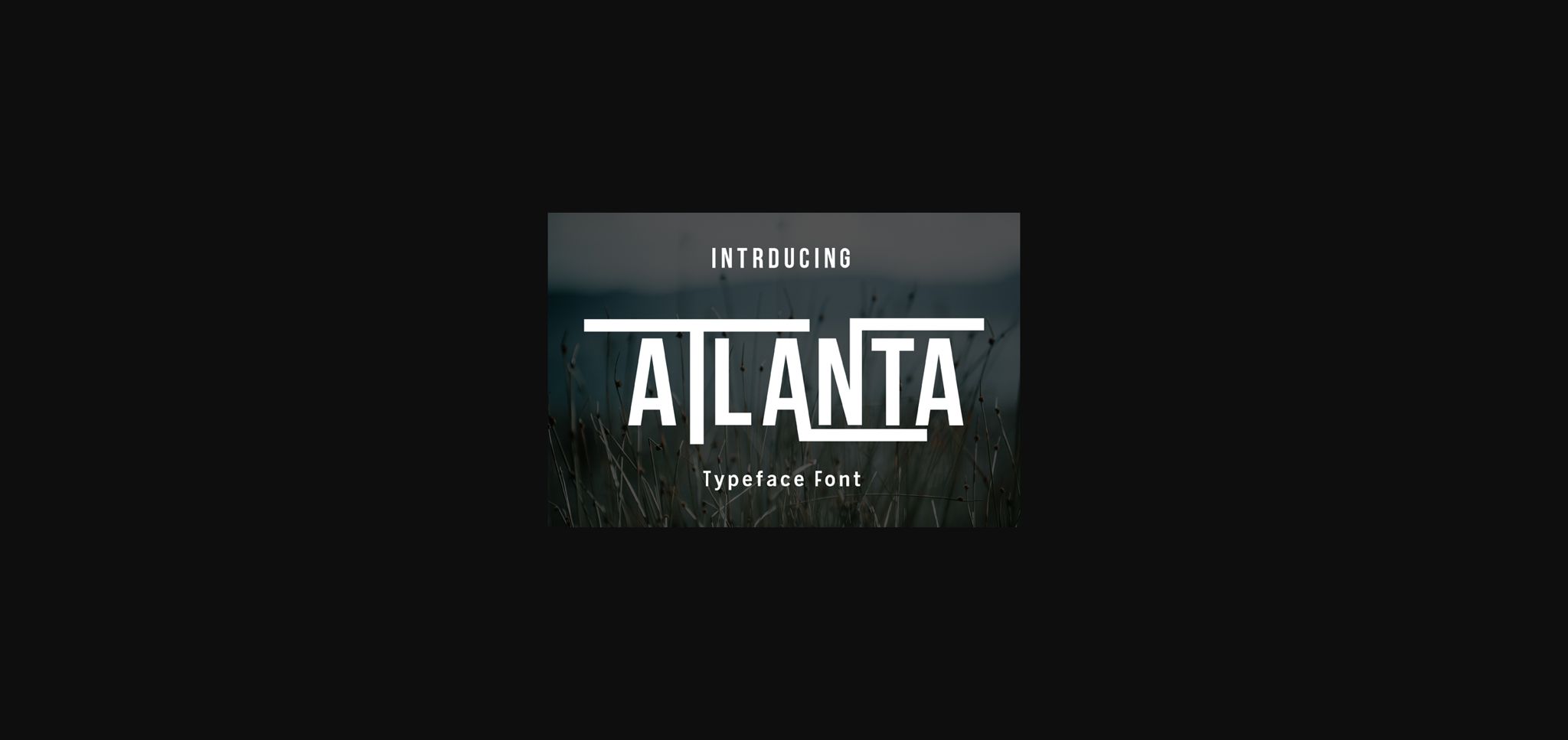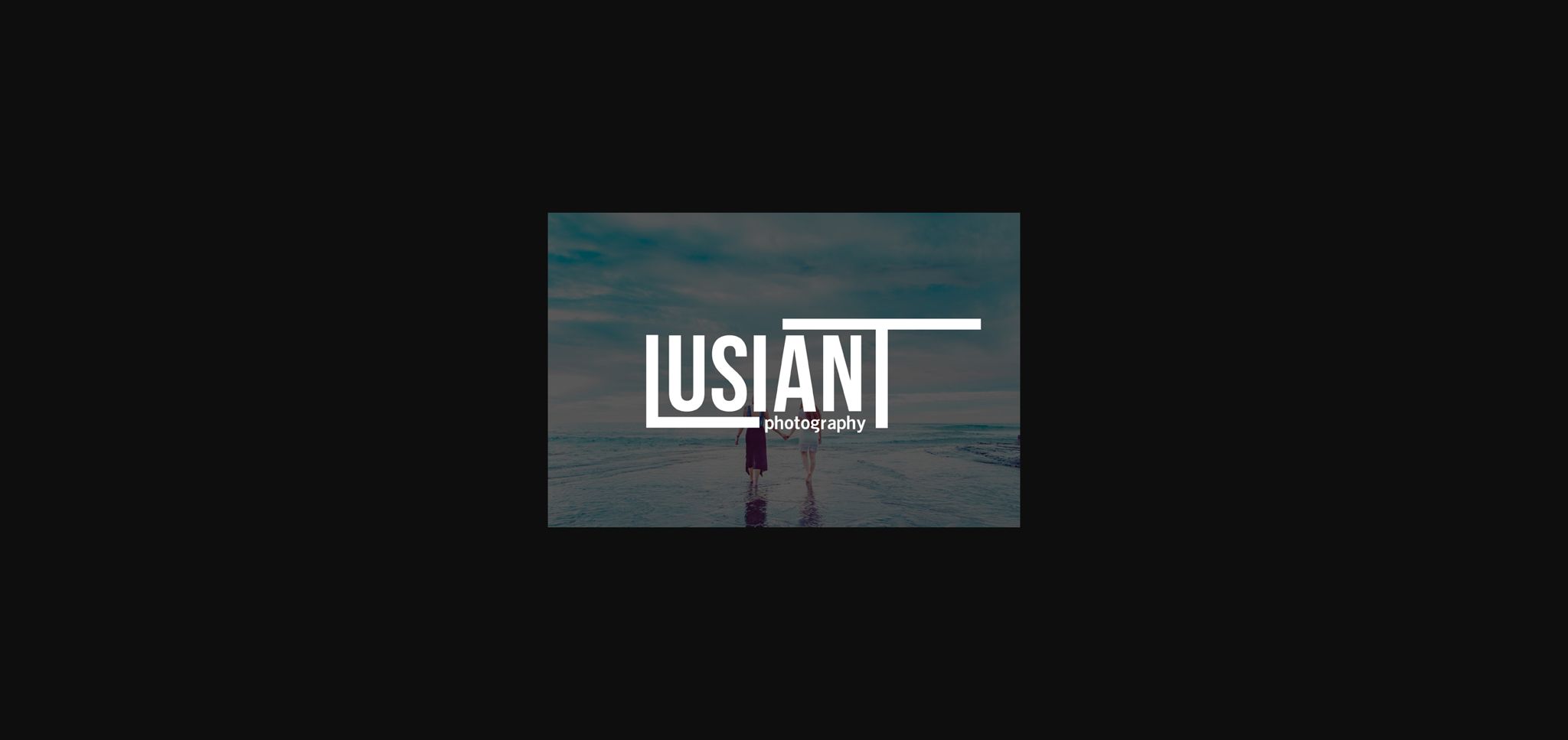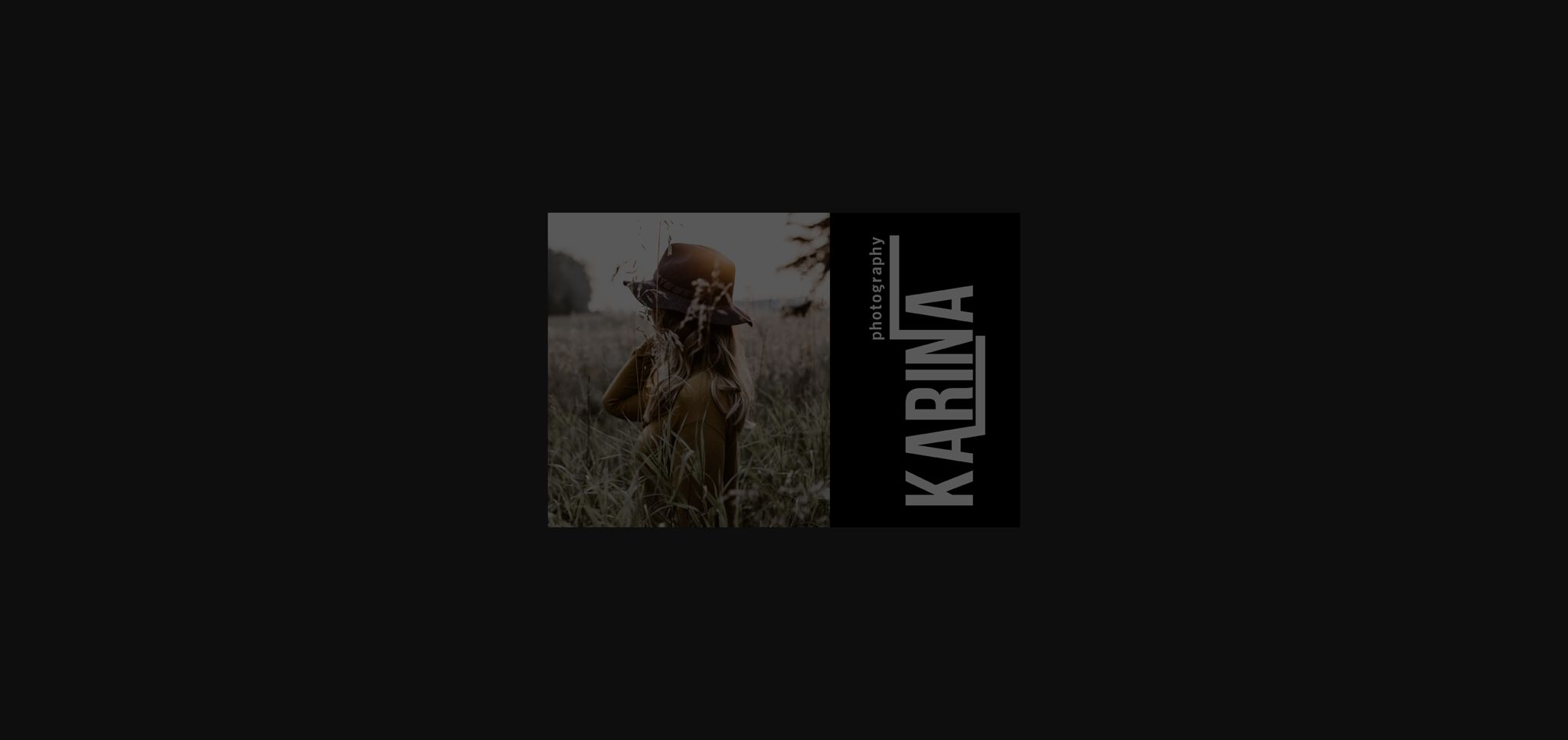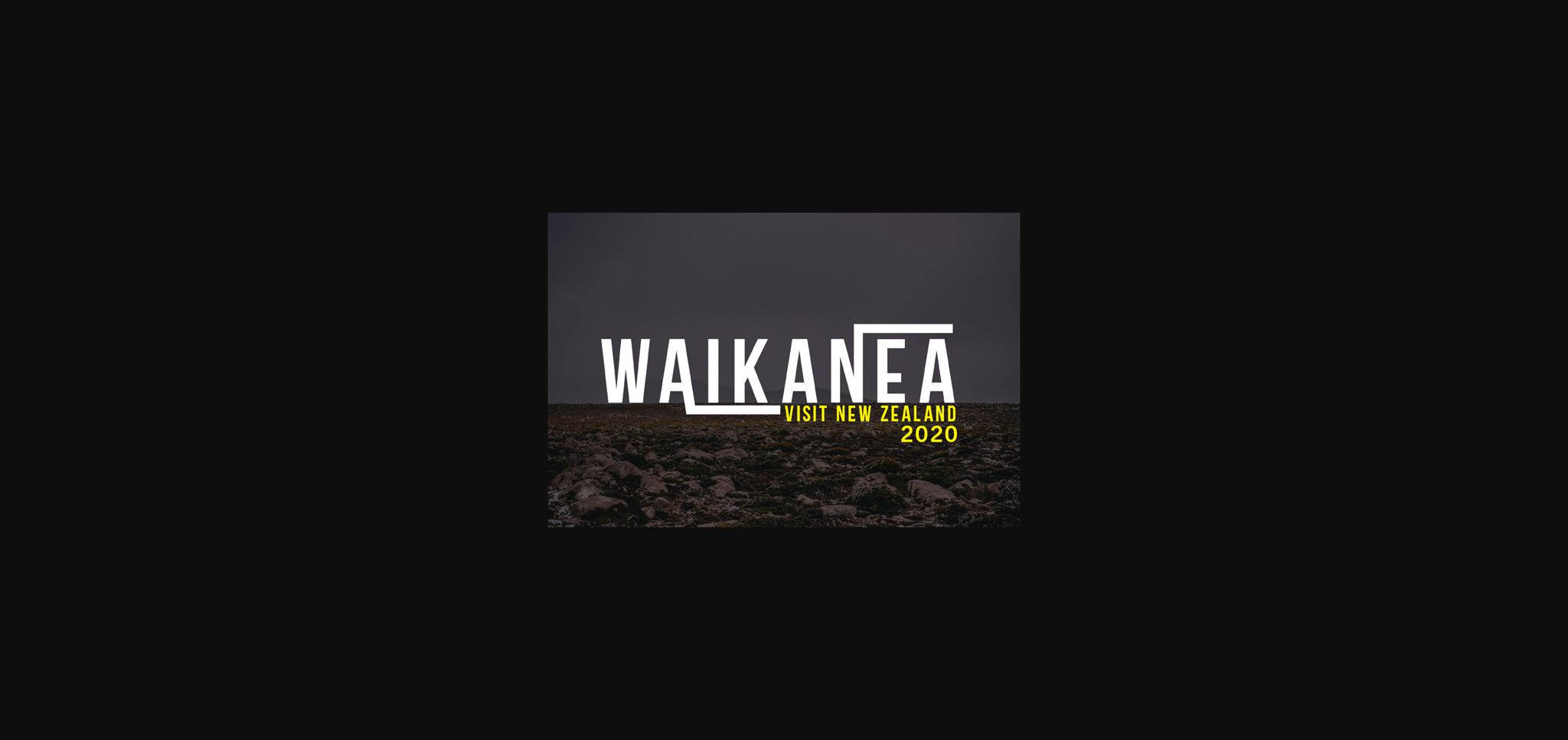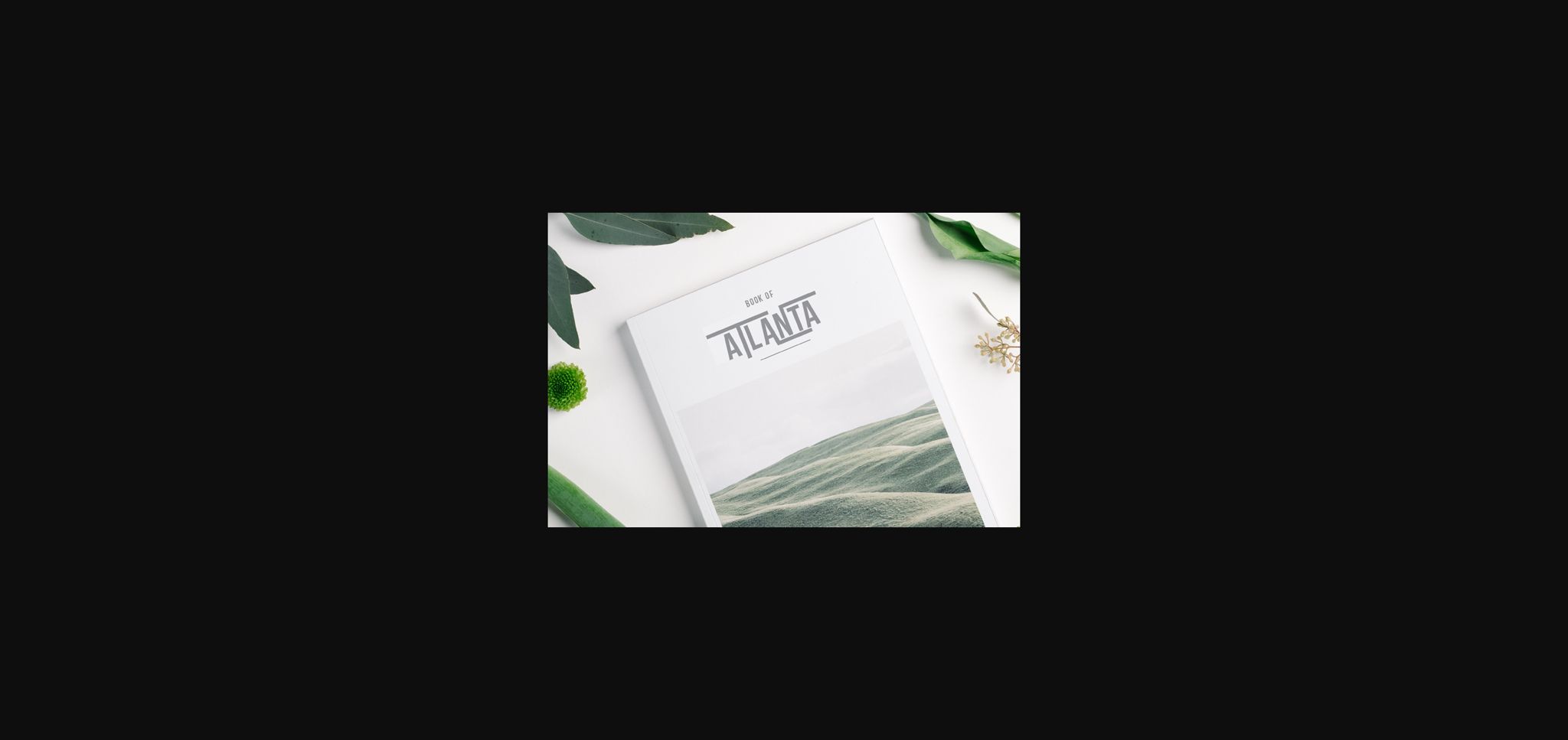
HomeSans Serif FontsAtlanta Font Sans Serif Fonts Atlanta Font FacebookXPinterestWhatsApp 1 of 7 ... Atlanta Font Poster 2... Atlanta Font Poster 3... Atlanta Font Poster 4... Atlanta Font Poster 5... Atlanta Font Poster 6... Atlanta Font Poster 7... About Atlanta Font Atlanta is a strong sans serif font. It features a classic and minimalist style. It’s perfect for magazines, quotes, social media posts, flyers, branding and much more! DOWNLOAD NOW People also explored Super Sweet Font Absurf Font Frenkii Font Choose Font Ansagia Metta Font Mollani Arnhem Font Dalbo Font Heirley Script Font 500 0 TagsAtlantaAtlanta Font Previous articleAdellyd FontNext articleKakuati Font LEAVE A REPLY Cancel reply Comment: Please enter your comment! Name:* Please enter your name here Email:* You have entered an incorrect email address! Please enter your email address here Website: Save my name, email, and website in this browser for the next time I comment. Personal Use Free Squealer Personal Use Free Read more about this font Zero Panzer Personal Use Free Read more about this font Black Friday Personal Use Free Read more about this font Crayones Personal Use Free Read more about this font BLOG Free vs Paid Fonts: Why Investing in Premium Fonts Is Worth It Free vs Paid Fonts: Why Premium Fonts Are Worth It in 2025 The debate of free vs paid fonts continues in the design world. While... Best Fonts for T-Shirt Design – Top 2025 Picks Modern Sans-Serif Fonts That Brands Love in 2025 Transform Your Website: Elevate Your Typography with 7 Best Web Font Generators